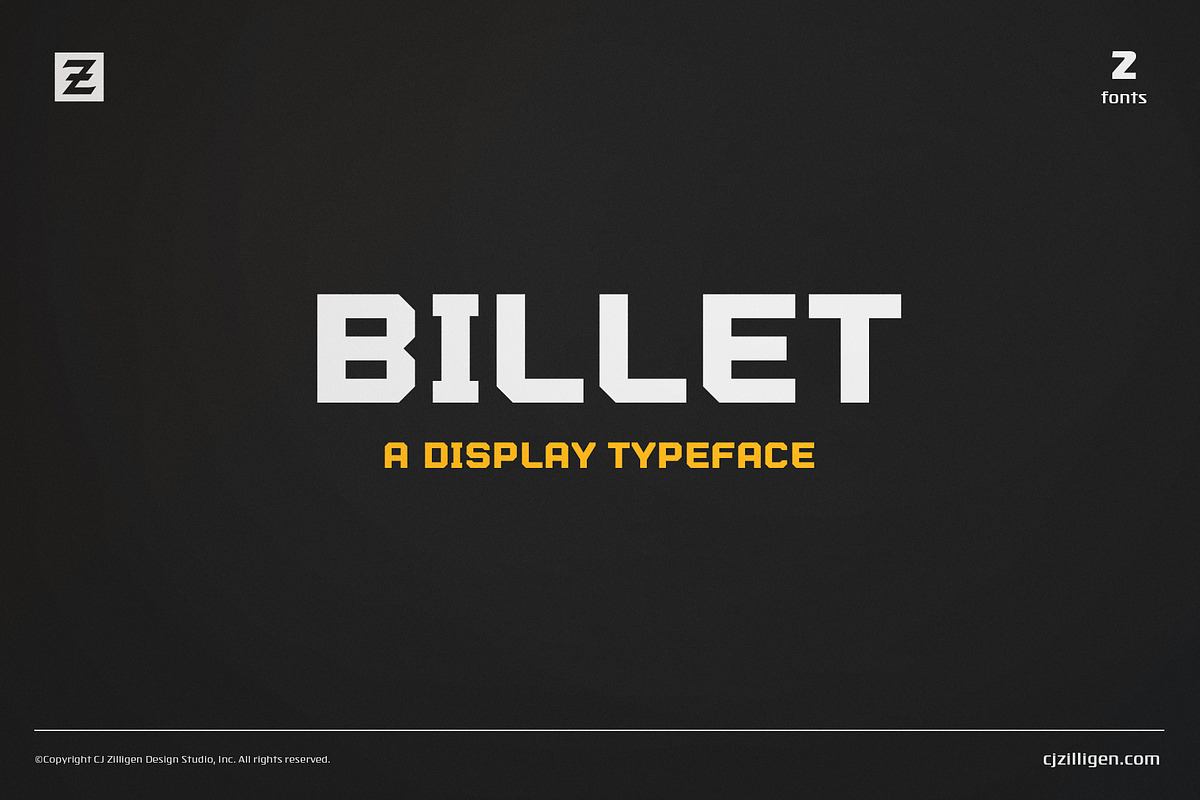
Billet Font Free Download is a bold and industrial-style typeface designed to make a strong visual impact. With its sharp edges and modern structure, this font is perfect for branding, logos, tech-themed designs, and editorial layouts that demand attention. Its commanding presence makes it an excellent choice for titles, signage, and any design that needs to convey strength and confidence.
The geometric design and consistent spacing of Billet Font offer great readability while maintaining a unique personality. Whether you're working on digital graphics or printed materials, this font adapts well to different environments, ensuring your message comes across loud and clear.